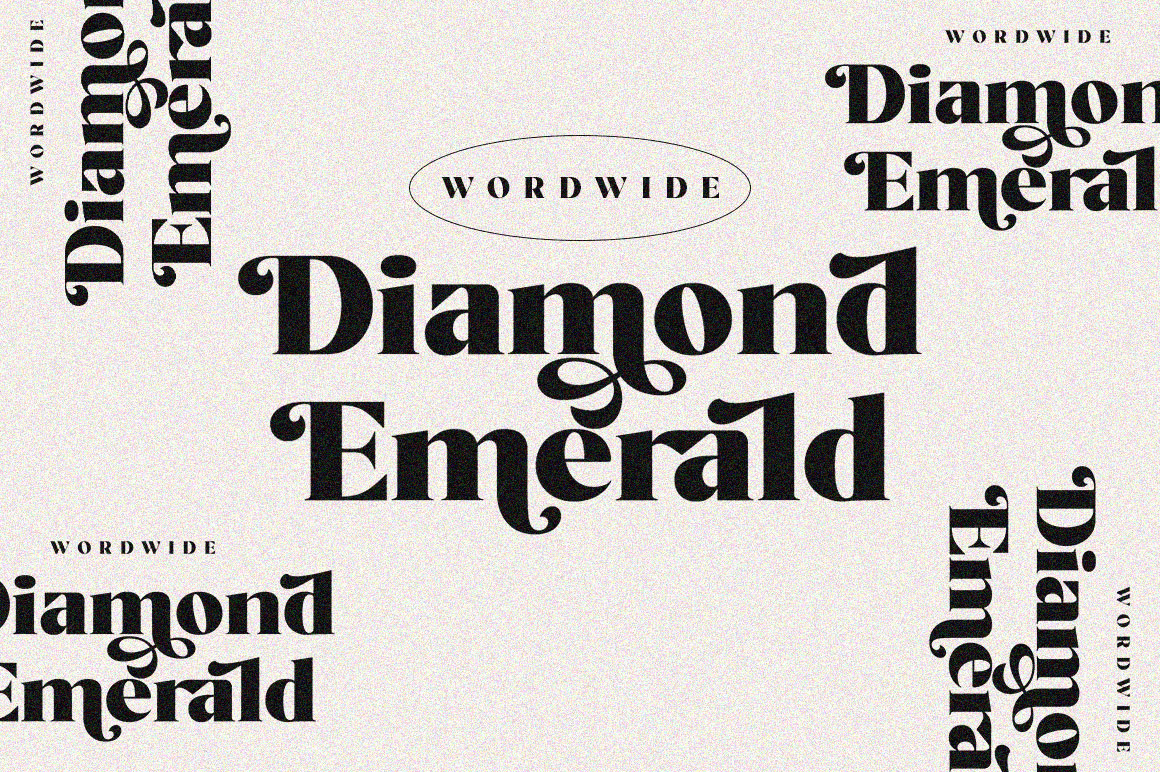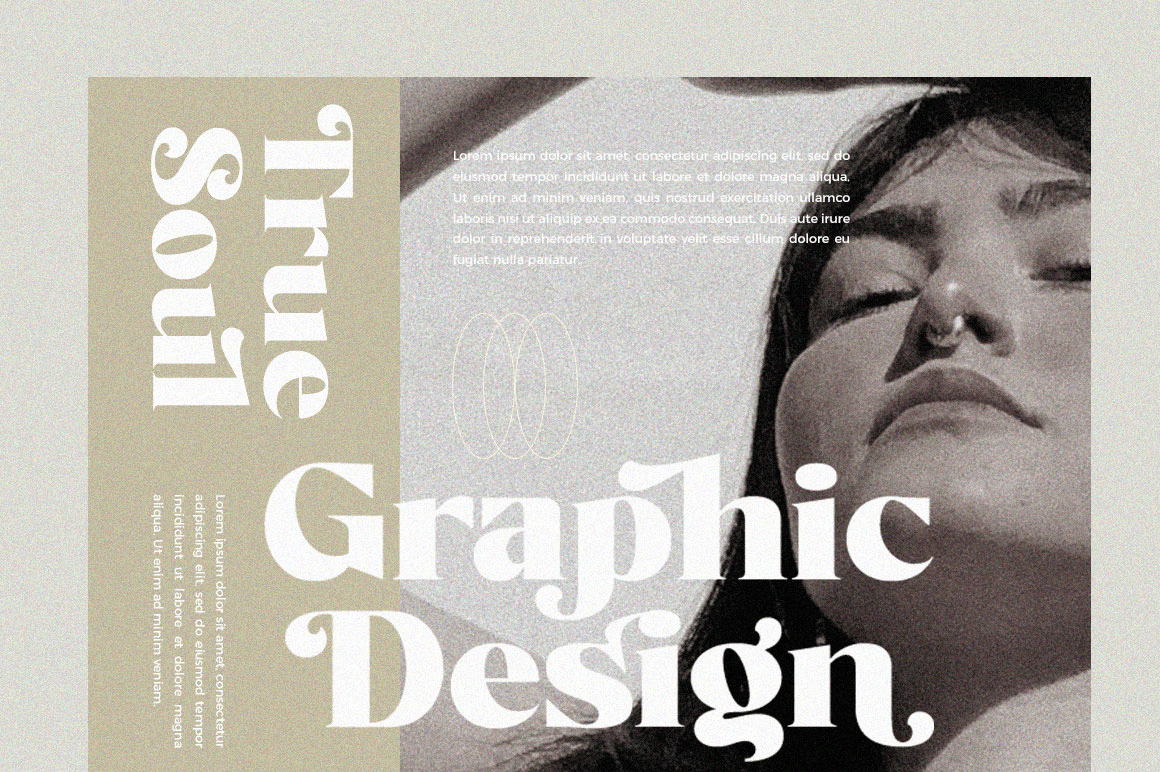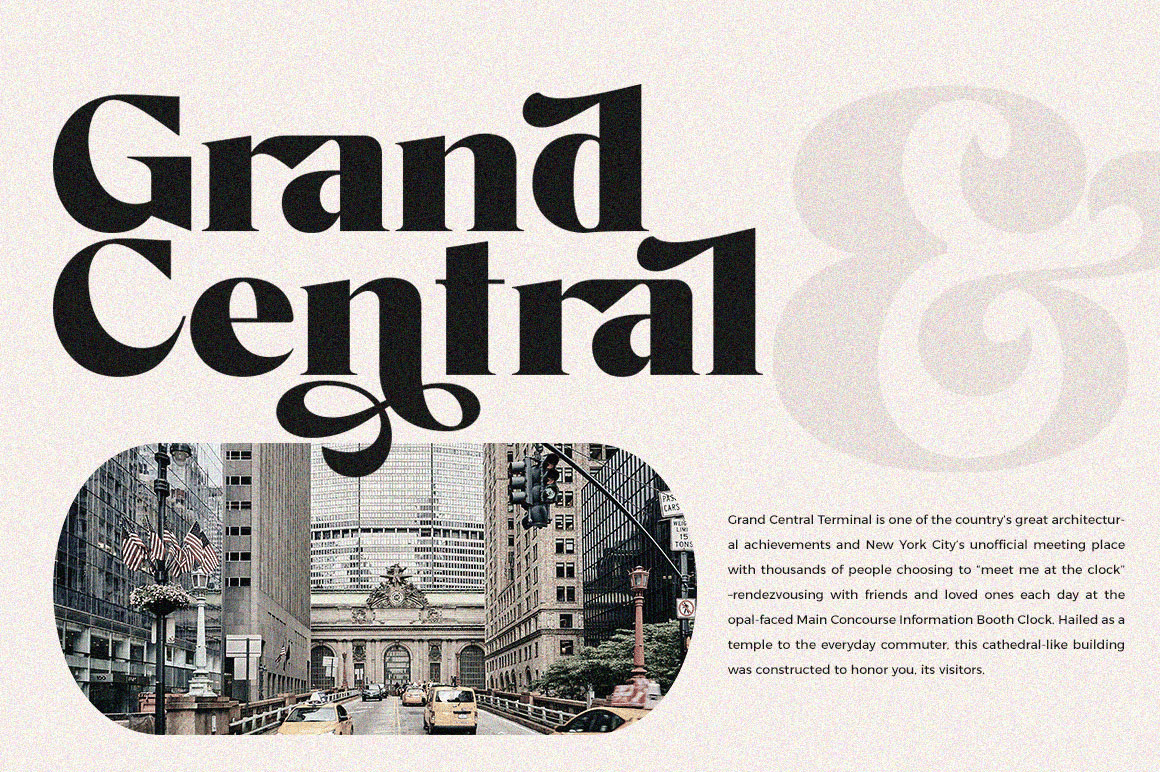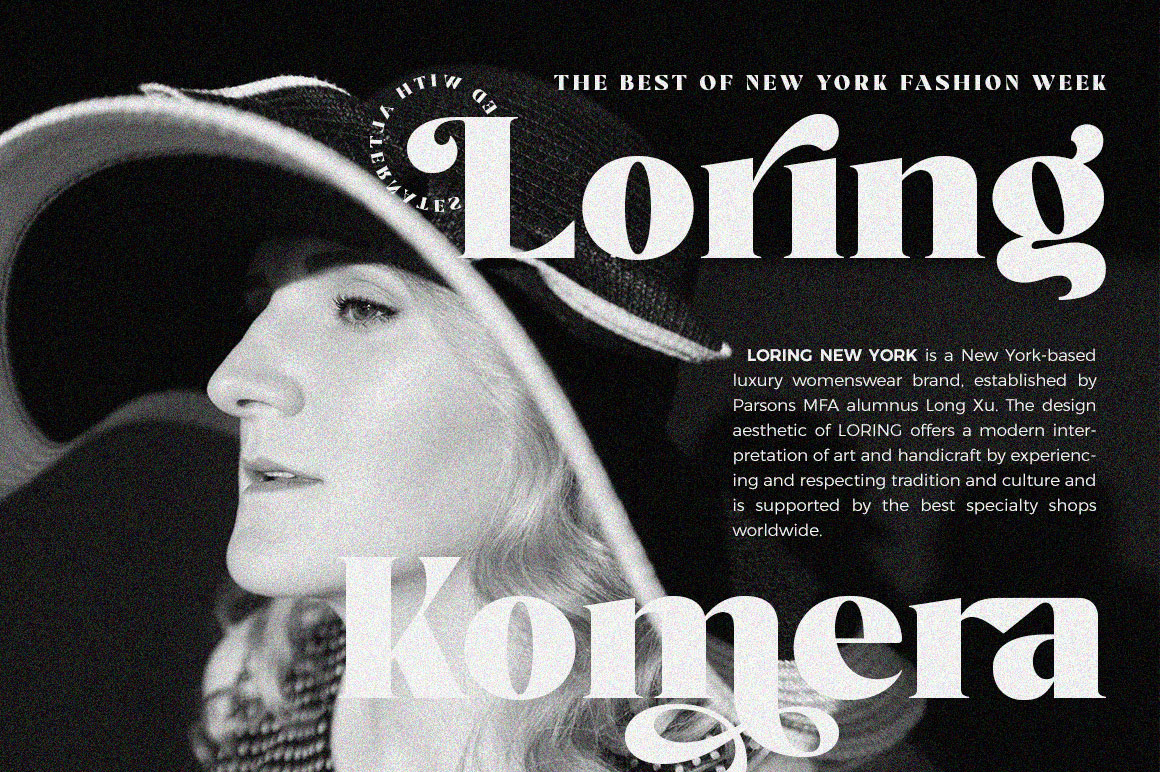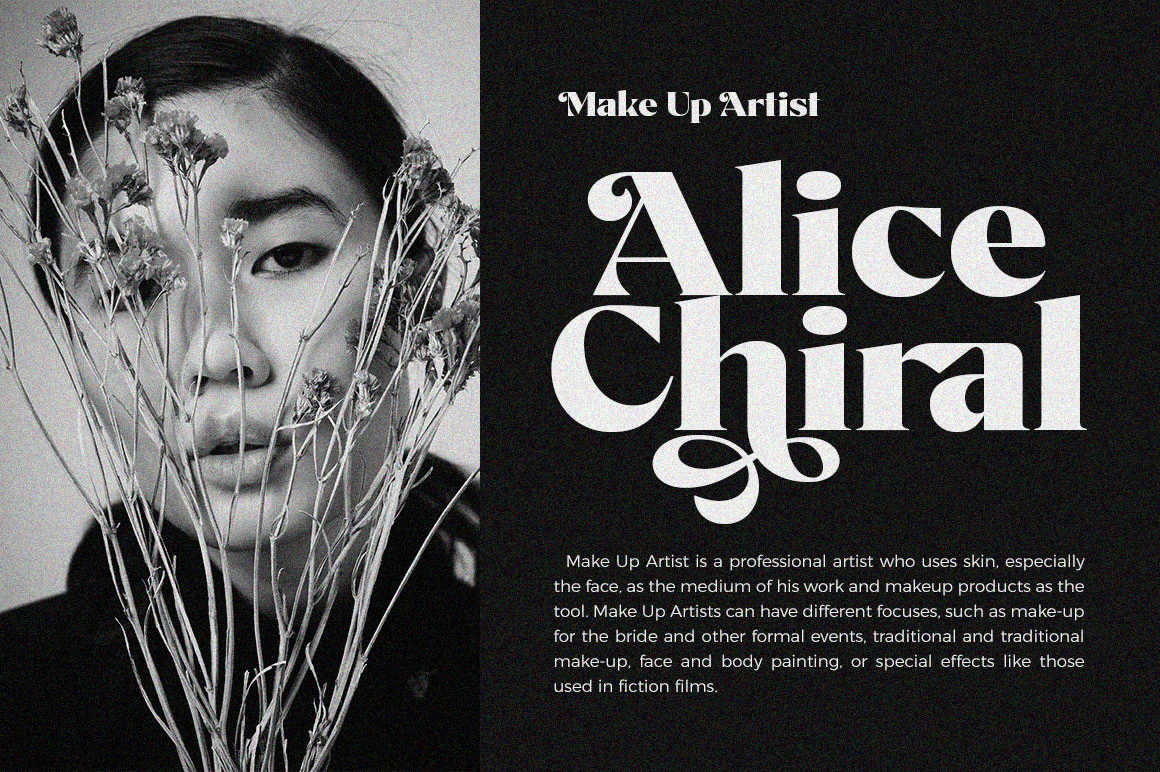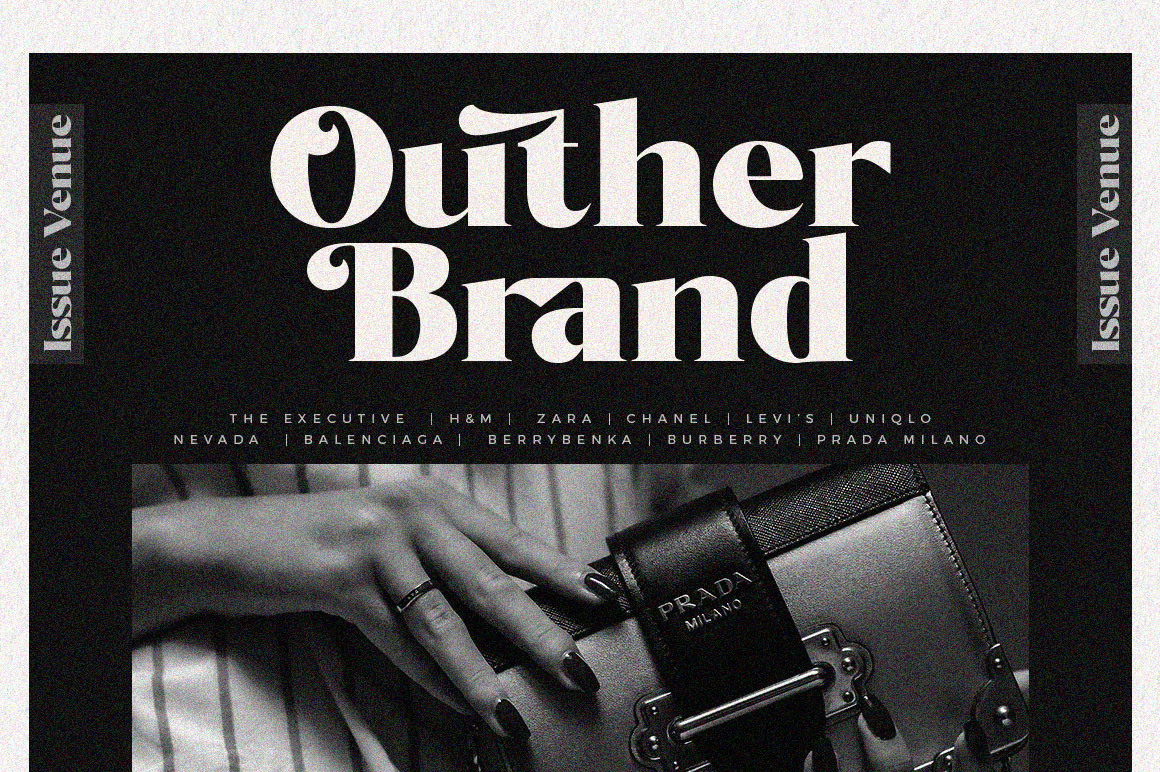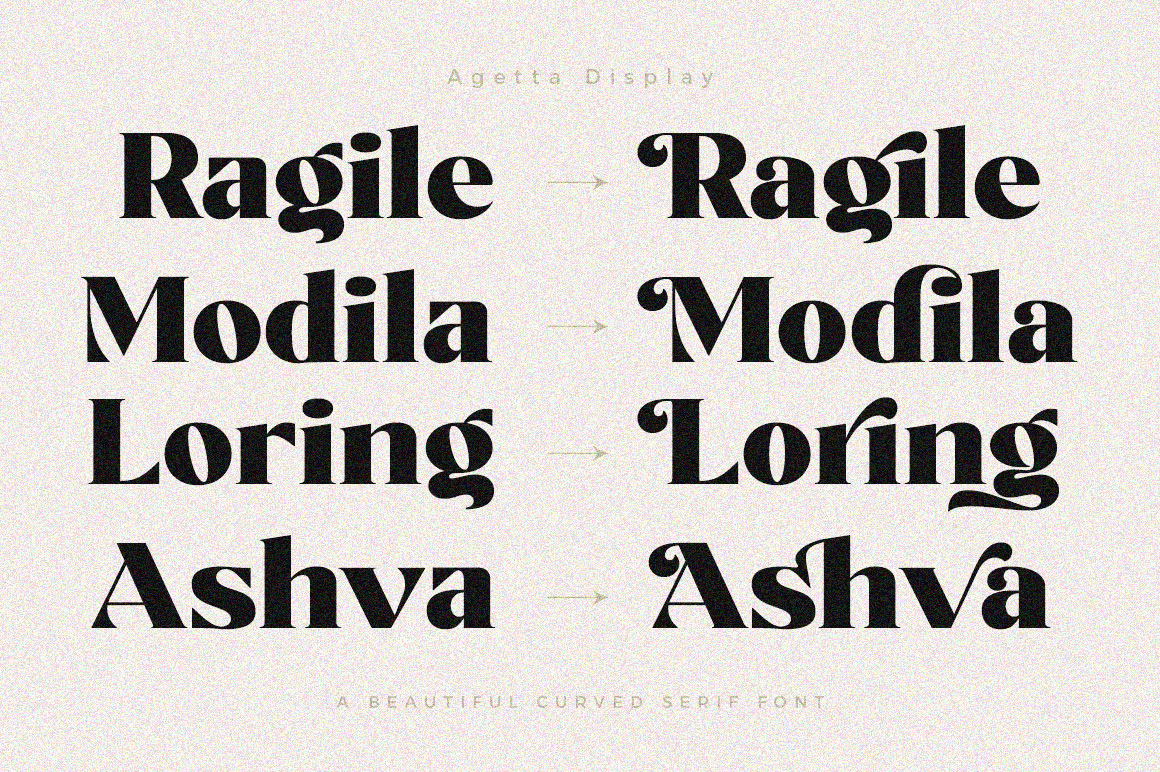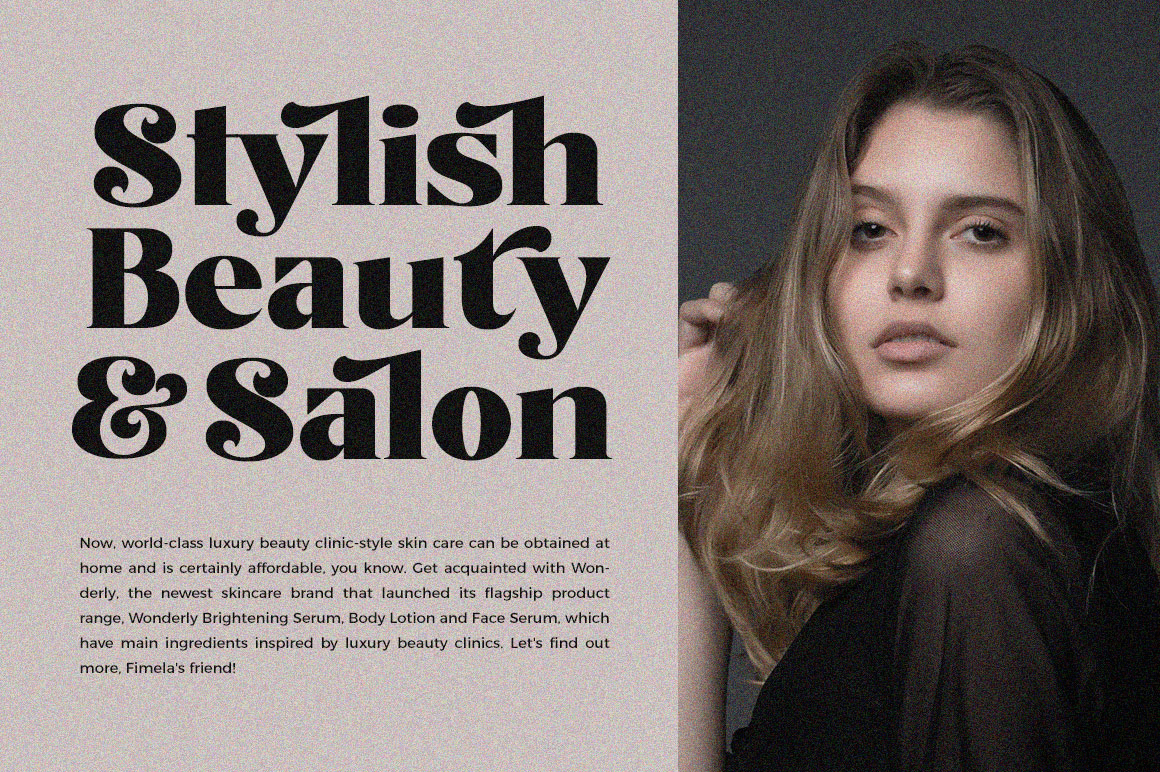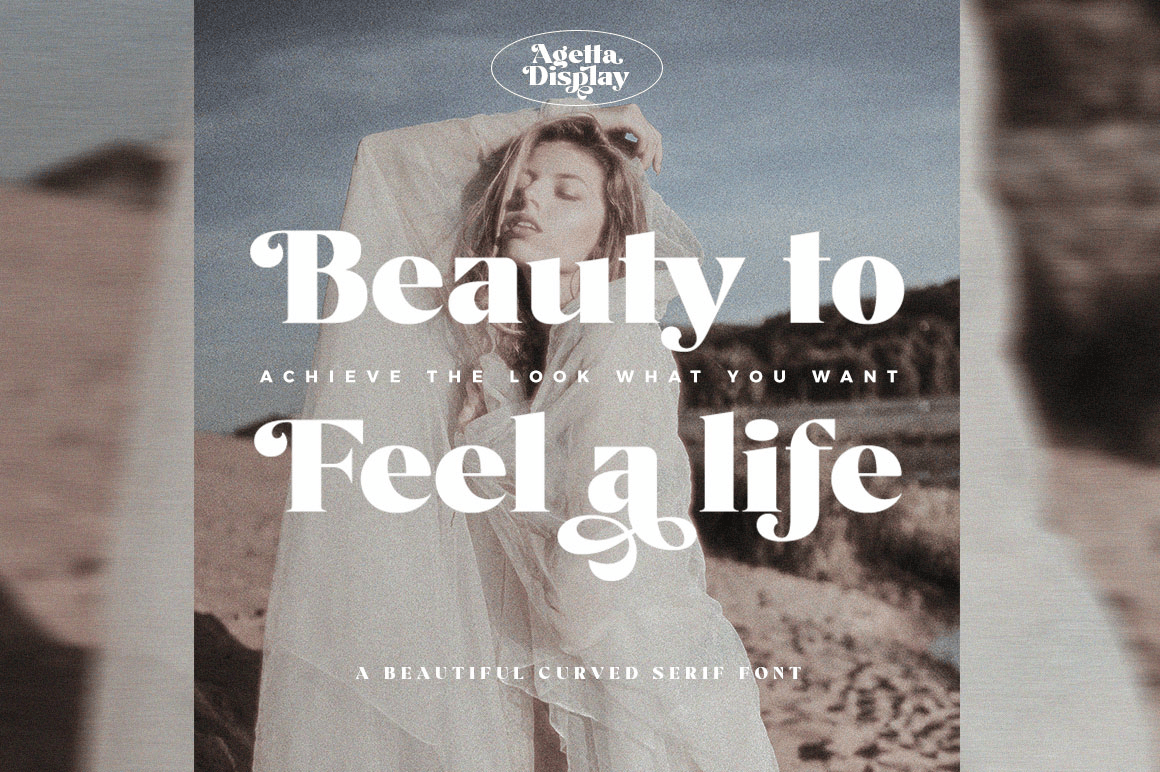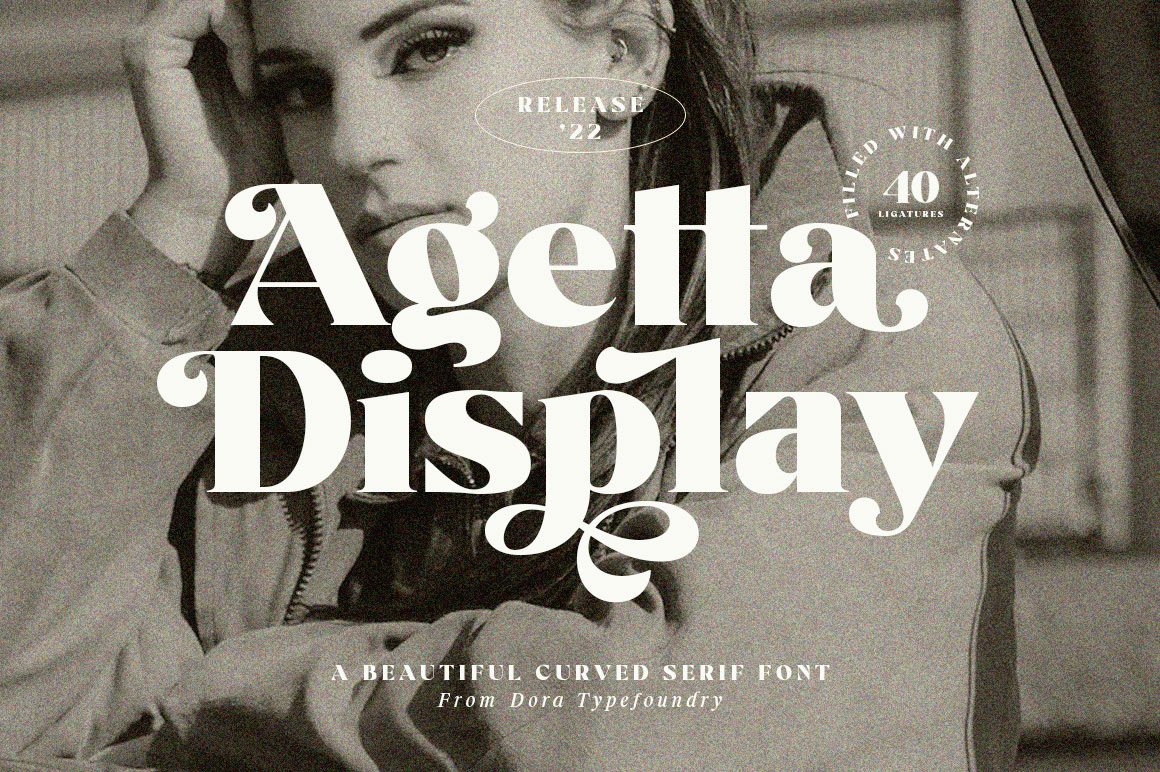
Agetta Display
Introducing Agetta Display is a bold vintage-style serif font with strong confidence. bold is inspired by something simple, elegant, usable and versatile. This serif typeface that looks amazing in both large and small settings is perfect for your design…